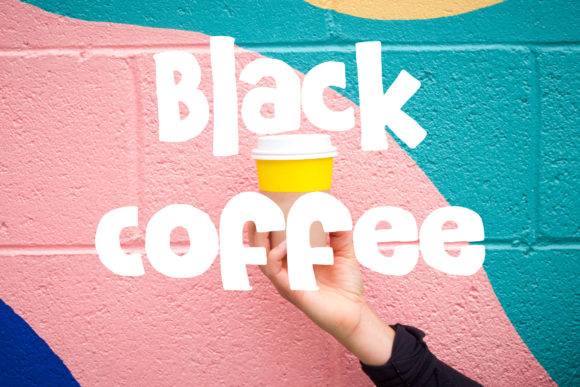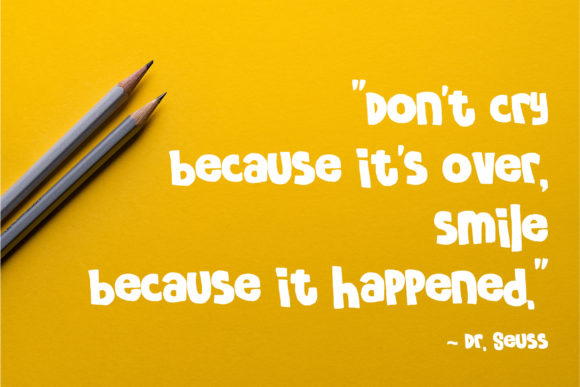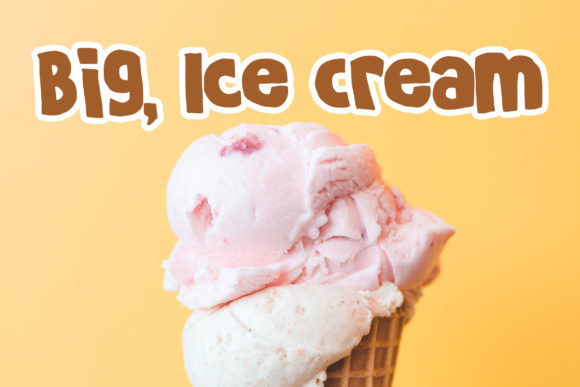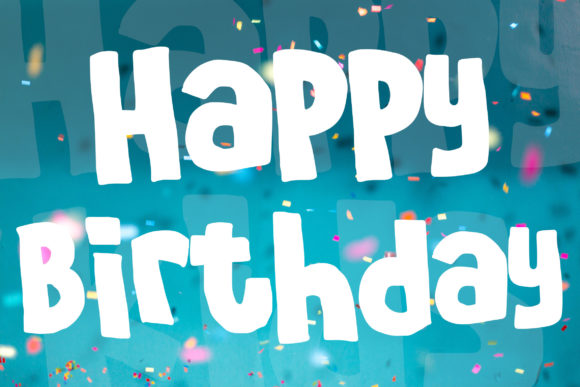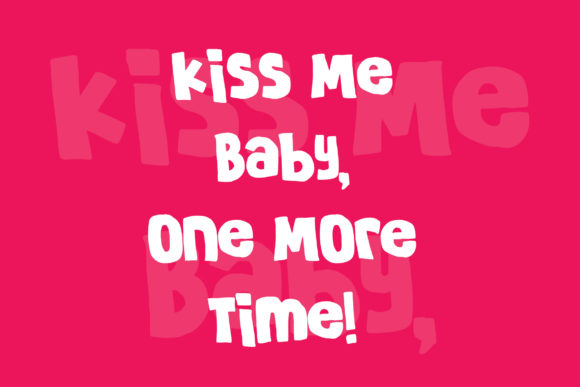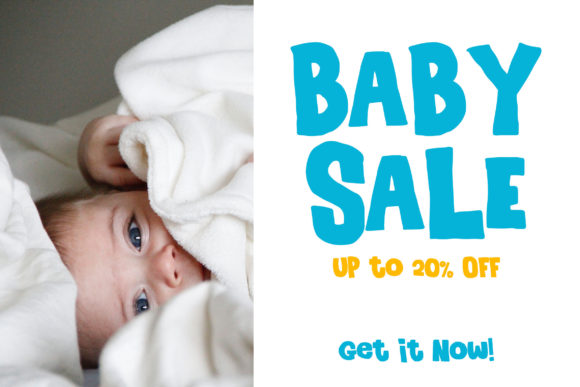
The Ultimate Guide to Cardust Font: A Friendly and Unique Display Font
I’ll never forget the time I was working on a project for a client who wanted a bold, eye-catching font to make their brand stand out. I spent hours scouring the internet for the perfect font, but nothing seemed quite right. That was until I stumbled upon Cardust Font. This chunky lettered display font has been a game-changer for my designs, and I’m excited to share its awesomeness with you! 😊
An Honest Review of Cardust Font
So, what makes Cardust Font so special? Let’s dive into the good stuff! 🤩
- ✨ Friendly and approachable: Cardust Font has a warm, inviting vibe that’s perfect for creating a connection with your audience.
- ✅ Unique and distinctive: This font stands out from the crowd, making it ideal for brands that want to make a statement.
- 💯 Highly legible: Despite its chunky design, Cardust Font is surprisingly easy to read, even at smaller sizes.
Of course, no font is perfect, and Cardust Font has a few minor quirks to be aware of:
- 🤔 Limited use of italics: While Cardust Font does offer an italic style, it’s not as comprehensive as some other fonts.
- ⚠️ Occasional kerning issues: As with any font, you may need to adjust the kerning to get the perfect spacing between letters.
The Story Behind Cardust Font
Cardust Font was designed with the goal of creating a friendly, approachable font that’s perfect for display designs. The designer wanted to create a font that would make readers feel like they’re reading a handwritten note from a friend. With its chunky letters and inviting vibe, Cardust Font is sure to become a favorite in your design arsenal!
| Font Name | Cardust Font |
| Author | rometheme |
| Q: What type of designs is Cardust Font best suited for? | A: Cardust Font is perfect for display designs, such as titles, headings, and short paragraphs. It’s also great for designs that need a friendly, approachable vibe. |